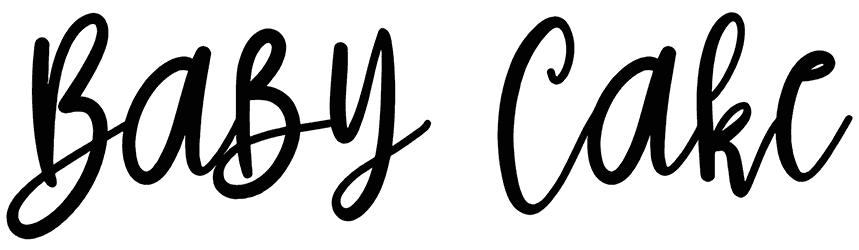
Baby Cake Font
Making an adorable logotype for a bakery wouldn’t be hard if you use a ravishing letterform like the Baby Cake font. The smooth and cursive characters of this handwritten font will give a sweet and natural vibe to your words. This postcard font covers A-Z characters, and you can benefit from it for your intended layouts.